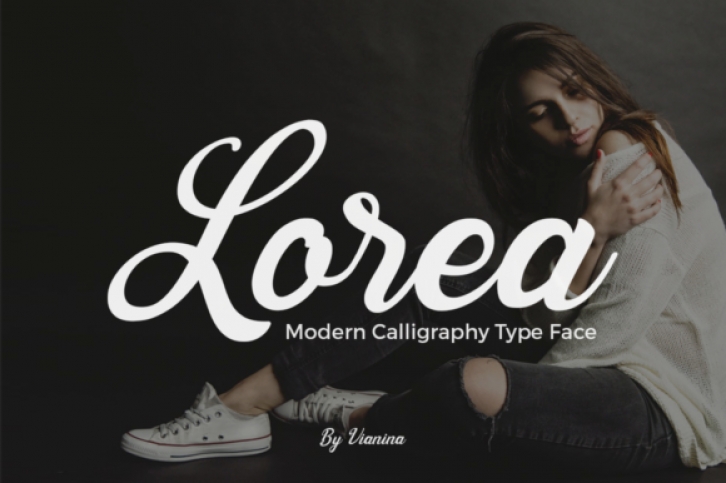
Lorea is a modern calligraphy with a clean touch and a beautiful curve on each letter
Lorea is great for use on: wedding invitations, fashion magazines, logos, stationary, social media, and very suitable for watermark photography.